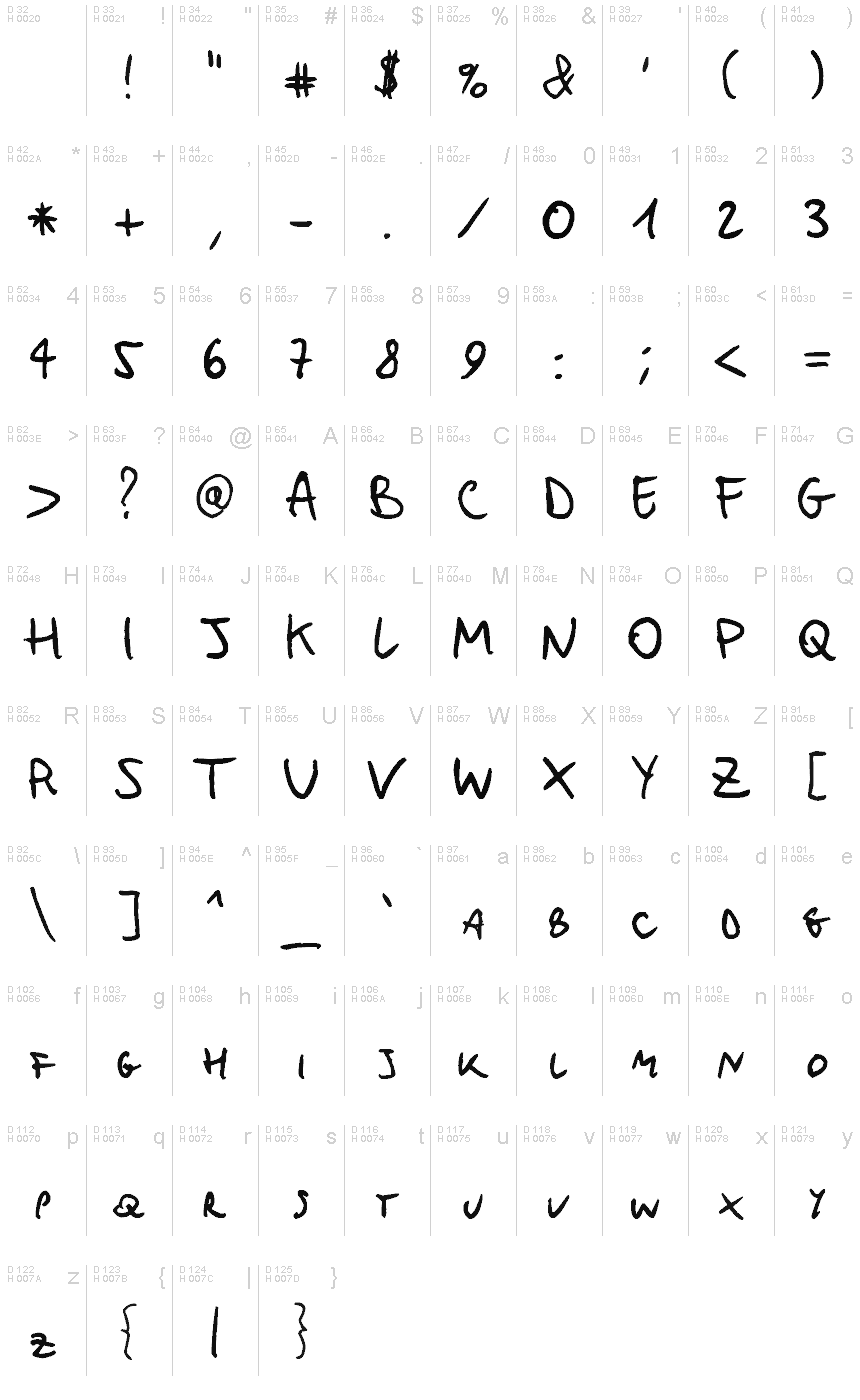
MichoMuchoMacho
Micho Mucho Macho is a bold and expressive handwritten font that commands attention. Crafted in all-caps with a touch of playful irregularity, this font effortlessly blends the personal touch of handwriting with a modern, stylized aesthetic. The varying sizes of the capital letters add a dynamic flair, while the overall cohesive design evokes a sense of energy and confidence.
Micho Mucho Macho's versatility shines through, making it a versatile choice for a wide range of design projects. From attention-grabbing headlines and impactful logo designs to captivating packaging and branding elements, this font's distinctive personality can elevate any creative endeavor. Whether you're seeking to infuse your work with a touch of personality or to create a strong, memorable visual impact, Micho Mucho Macho is a font that is sure to leave a lasting impression.